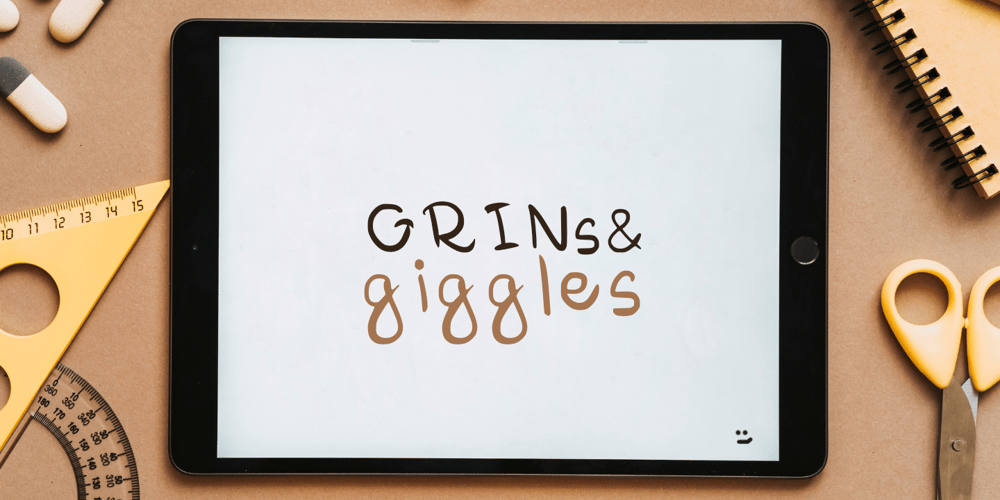
Grin
Grin font
Grin Font Family was designed by Vanina Dimitrova and published by VibeType. Grin contains 1 styles and family package options. Glyphs count: 207This font captures a sense of youthful energy, making it perfect for projects targeting a young audience or those seeking to evoke a sense of childlike wonder and playfulness.Handwritten, it is characterized by its energetic and playful appearance. Letters feature loose and slightly uneven lines, reflecting the carefree nature of childhood. The font appears unrefined, with a hint of mischief that adds personality to any design. Its rounded edges and irregular letter forms give it a sense of spontaneity and roughness, reflecting one adventurous spirit.